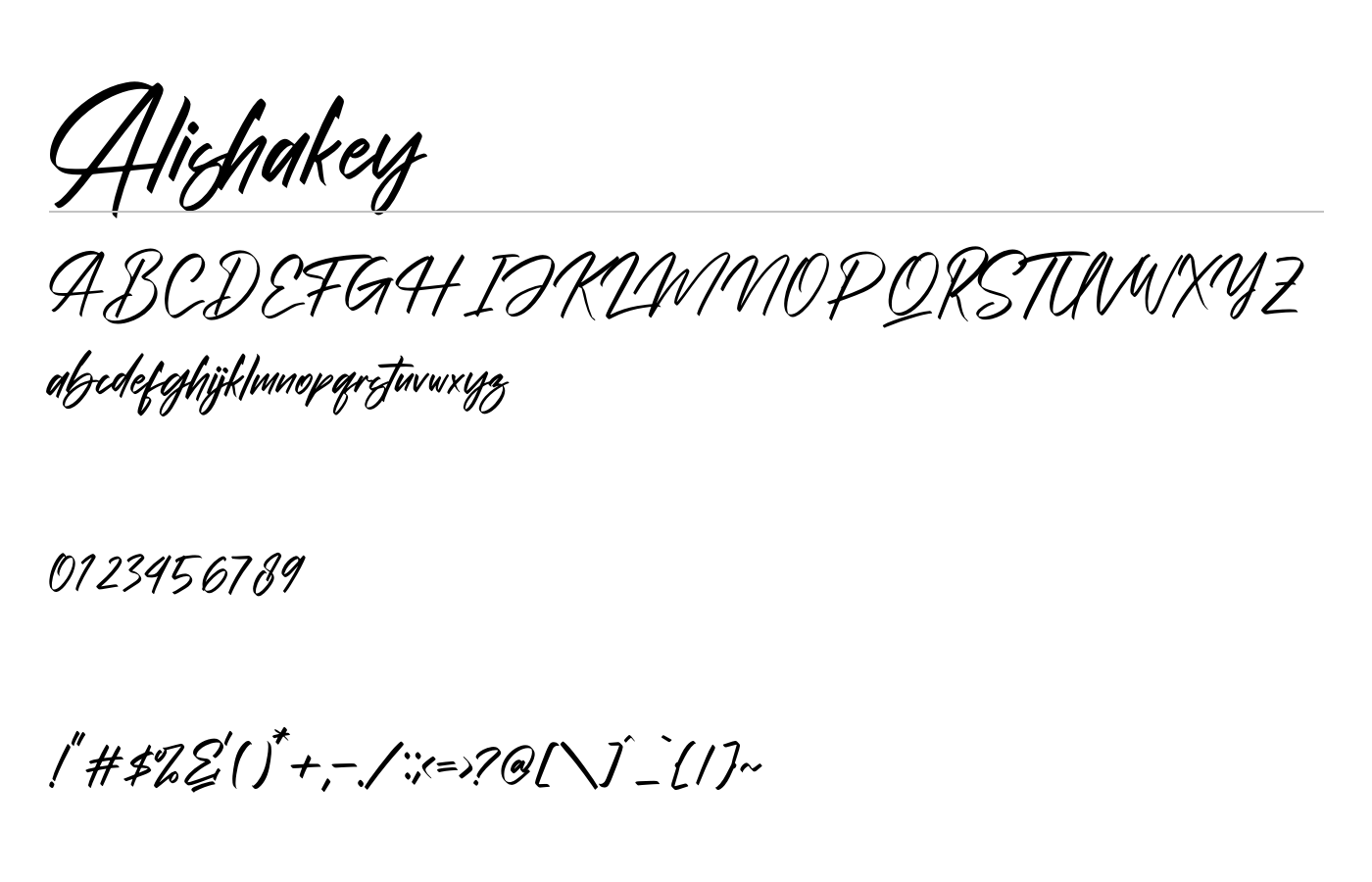
Alishakey is a stylish script font with a dynamic, handwritten feel, characterized by its elegant, flowing strokes and a slightly condensed width. It features smooth, calligraphic curves and consistent medium weight, making it perfect for creative and expressive designs. This font works beautifully for branding, invitations, and any project seeking a personal, sophisticated touch with a modern flair.
Alishakey Font
About Alishakey Font